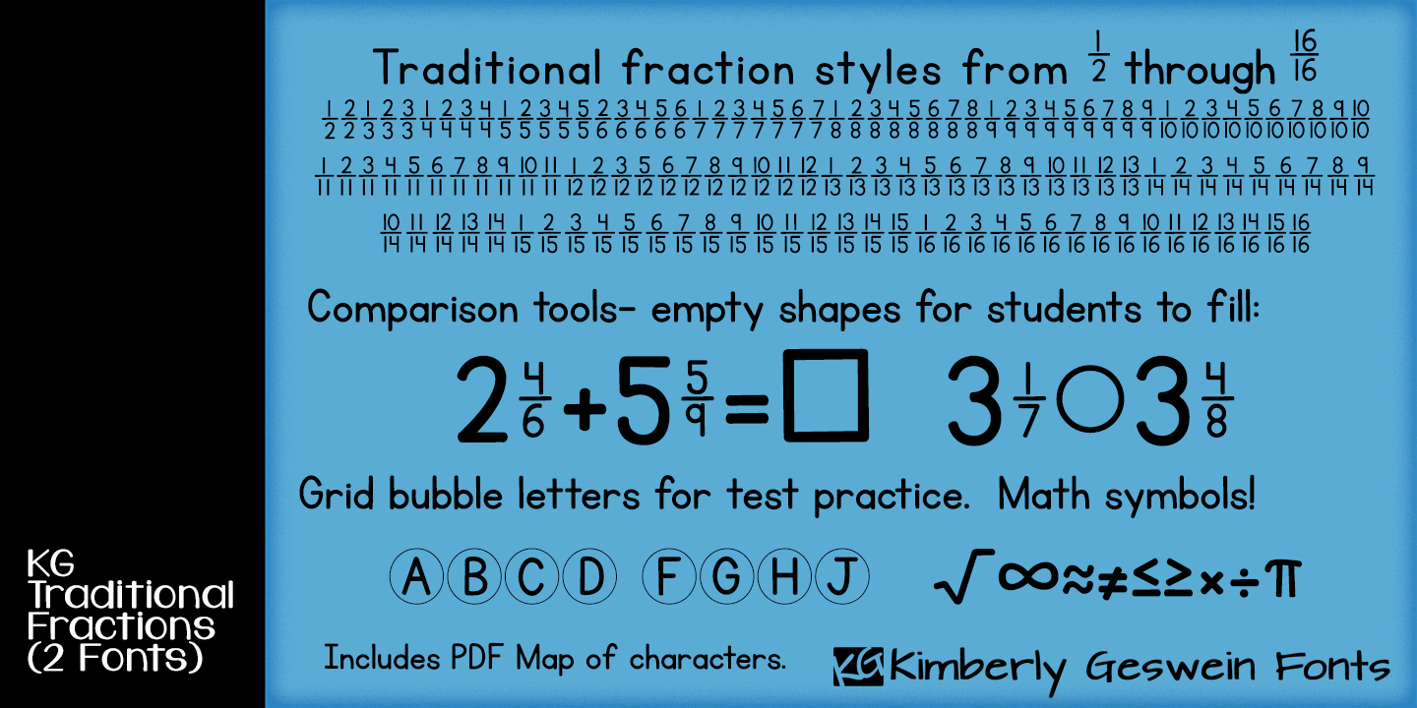
KG Traditional Fractions Font
Traditional style fractions for teachers. Includes 1/2 through 16/16 in 2 fonts. Also includes PDF maps to help you locate the glyphs you need. Test-taking bubbles are also included. Comparison circles also included.